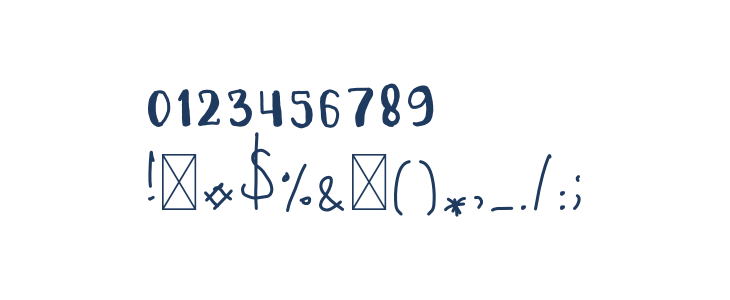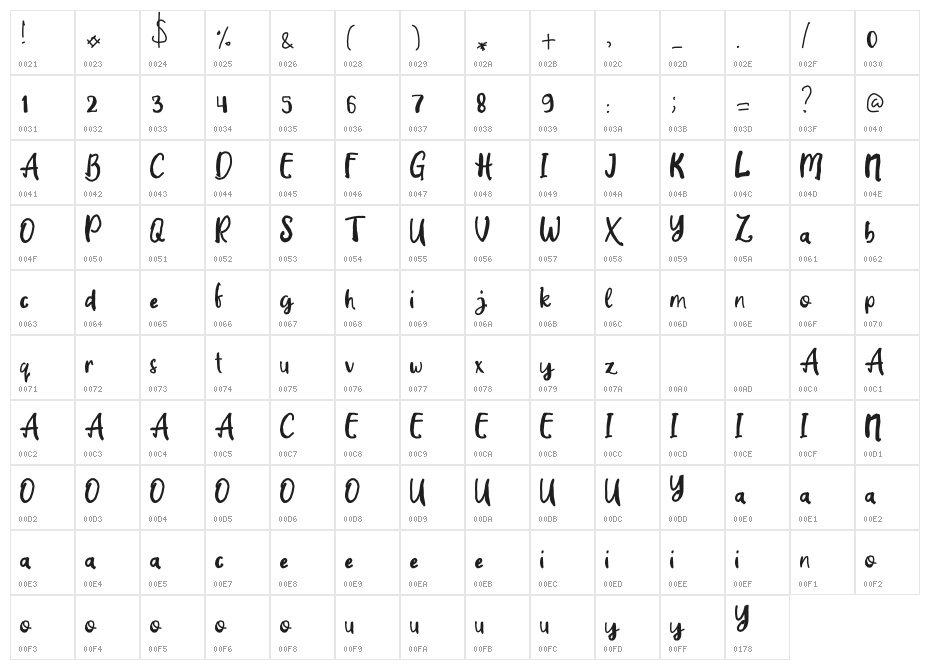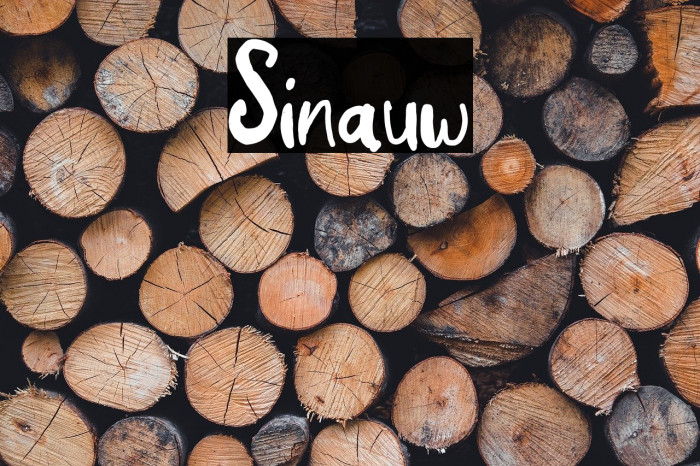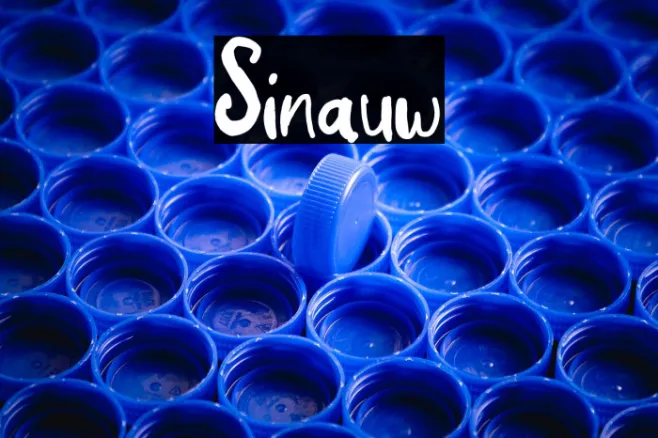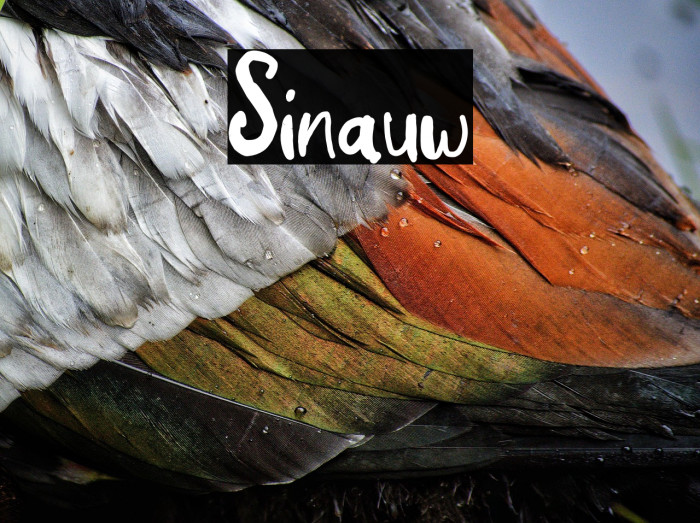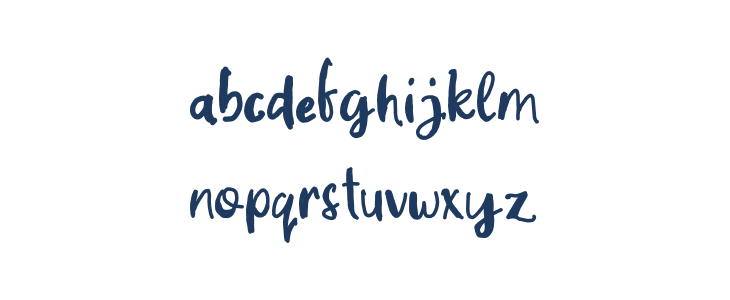
Sinauw Font
Sinauw Description
This font exudes a playful and artistic vibe with its brush-like strokes and uneven character shapes. The uppercase letters are bold and dynamic, with varying thickness that adds a sense of movement and energy. The lowercase letters maintain this lively style, offering a more casual and approachable feel. Numbers are consistent with the overall design, ensuring readability while retaining the font's unique flair. Special characters are creatively integrated, enhancing the font's versatility for various design needs. Its hand-drawn appearance makes it ideal for projects that require a personal touch.